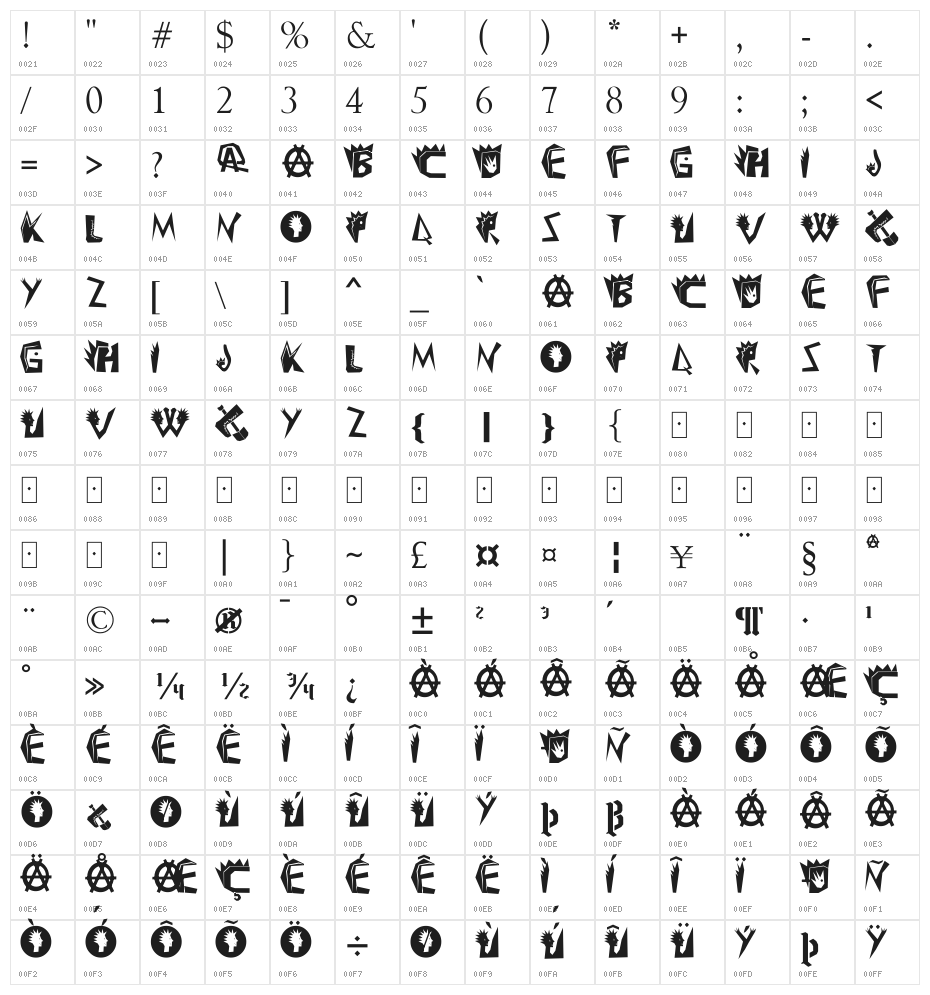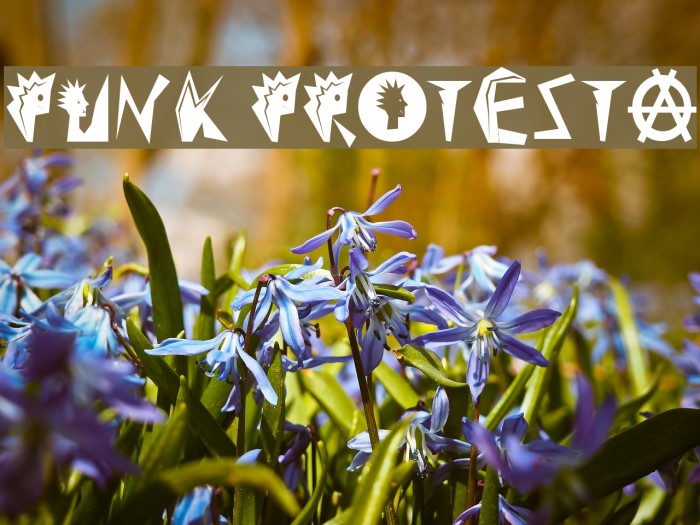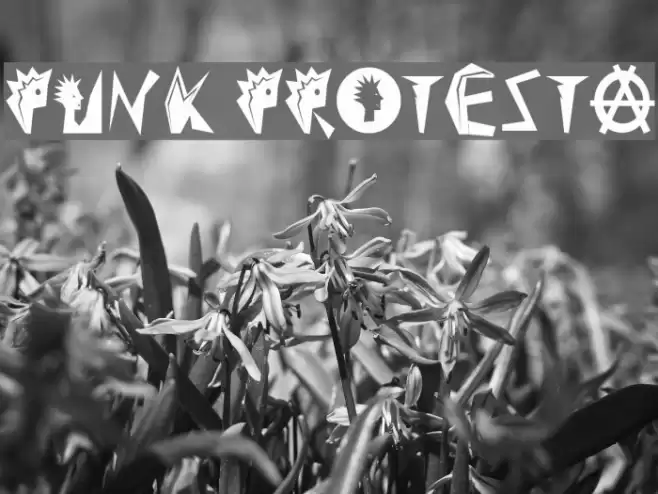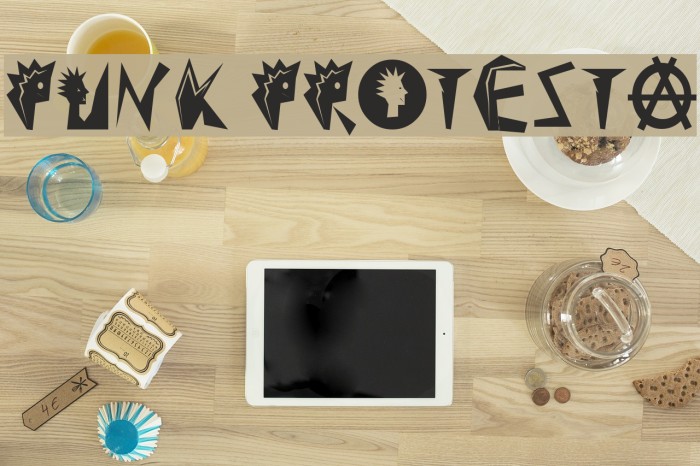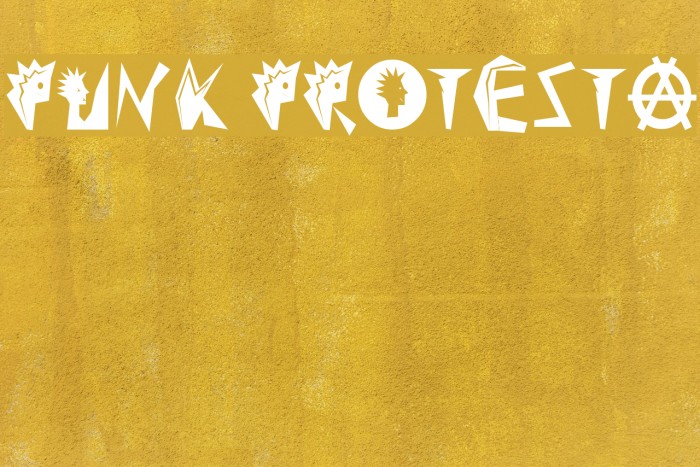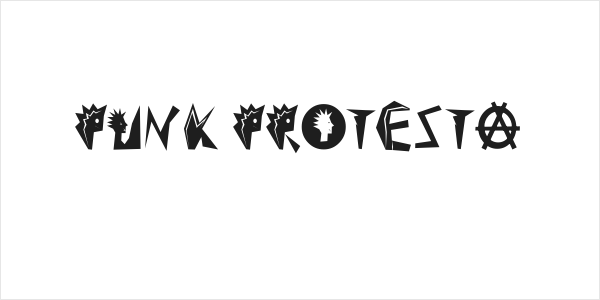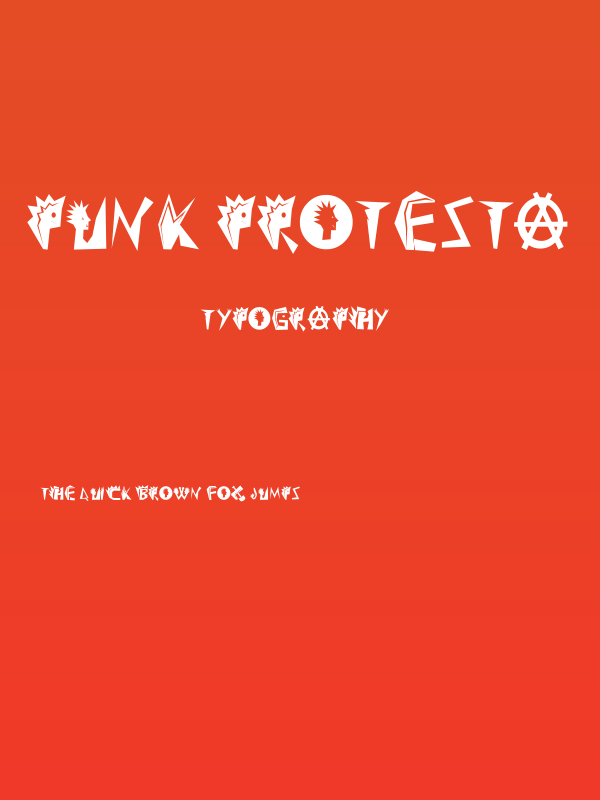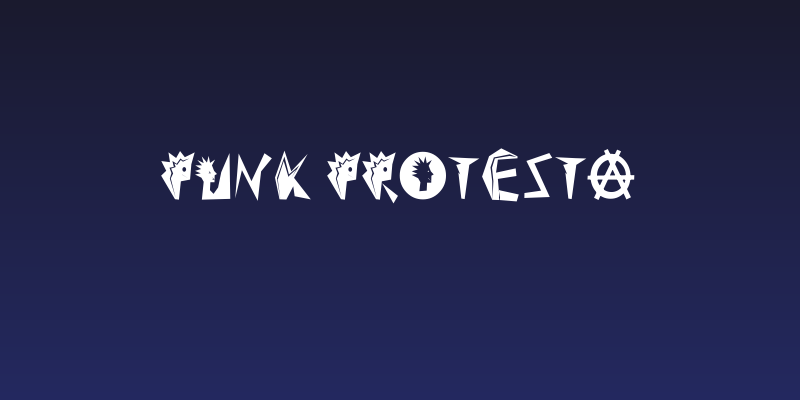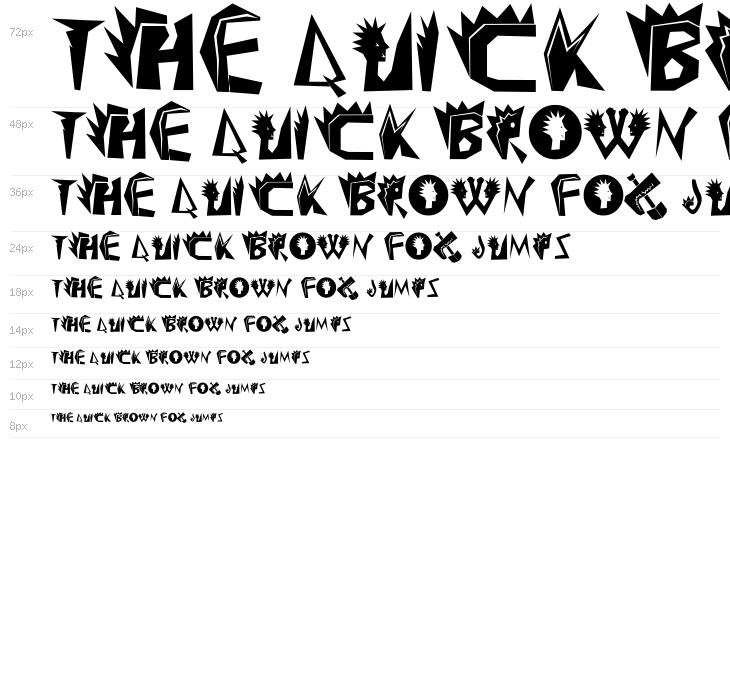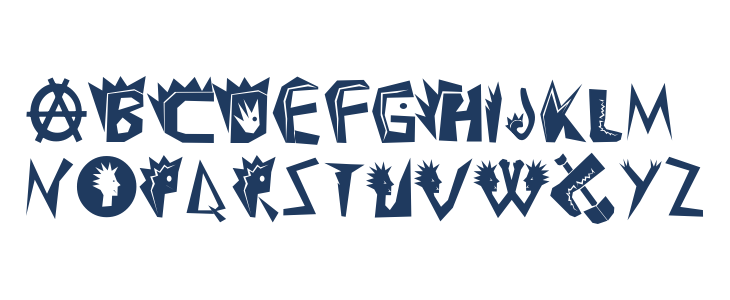
Punk Protesta Font
Punk Protesta Description
This font embodies a rebellious and edgy aesthetic, characterized by sharp, angular lines and bold, striking shapes. Each letter is designed with a unique flair, incorporating elements reminiscent of punk culture, such as spikes and anarchic symbols. The uppercase letters are particularly distinctive, with exaggerated features that convey a sense of movement and energy. The lowercase letters maintain a similar style, ensuring consistency throughout the typeface. The numbers are more straightforward, providing a balance to the overall design. Special characters are creatively integrated, adding to the font's dynamic and unconventional appearance. This font is perfect for projects that aim to capture a sense of defiance and individuality.
Overall StylePunk, Rebellious, Edgy
Use CaseHeadlines, Posters, Branding
Proposed ProjectsIdeal for music album covers, protest posters, streetwear branding, and edgy editorial designs.